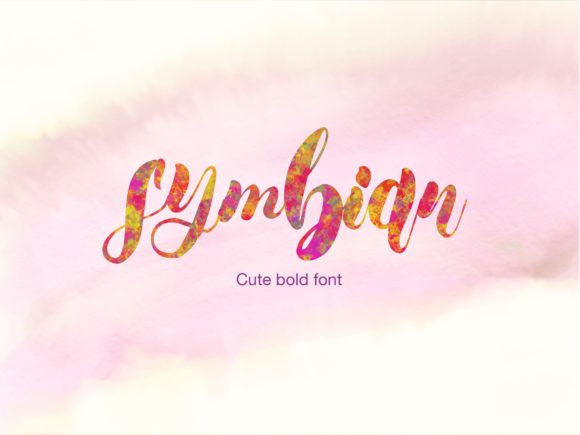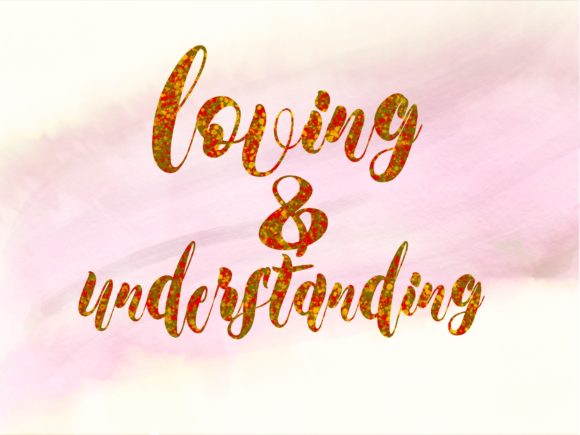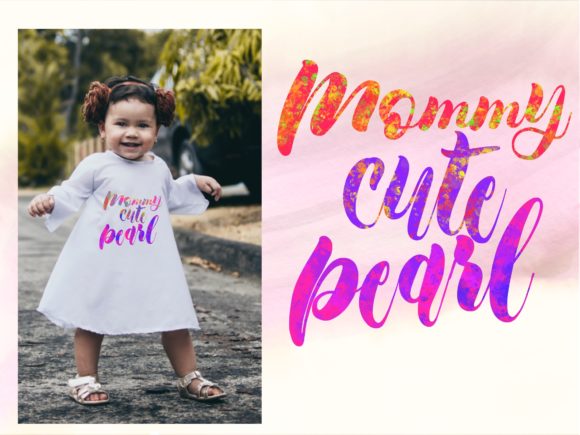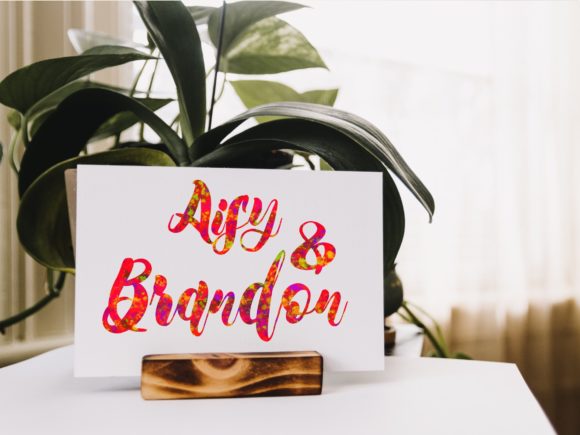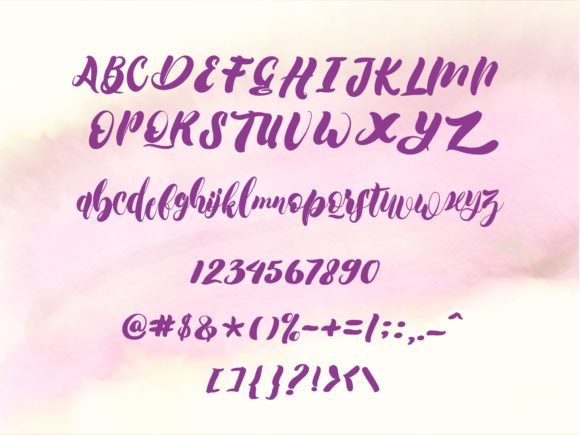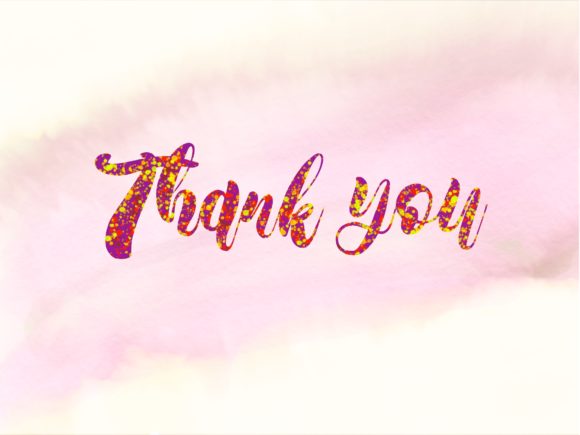
Symbian Cute Font
About Symbian Cute Font
Symbian is a cute, bold font with a strong character. it will transform design into a beautifully unique product.